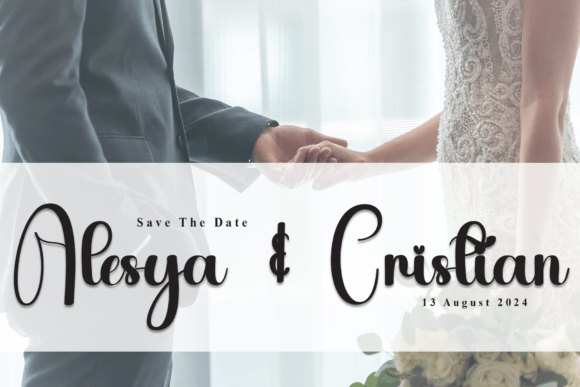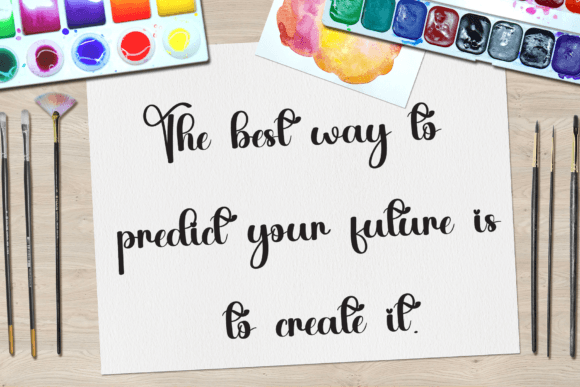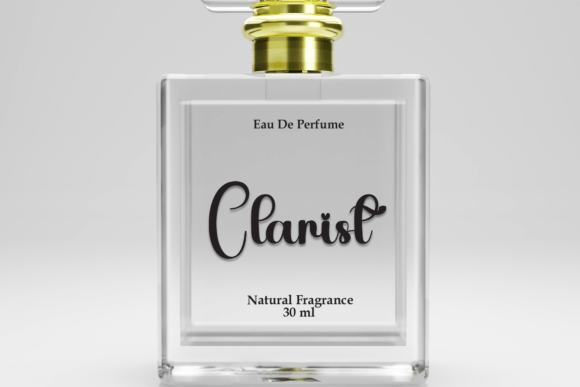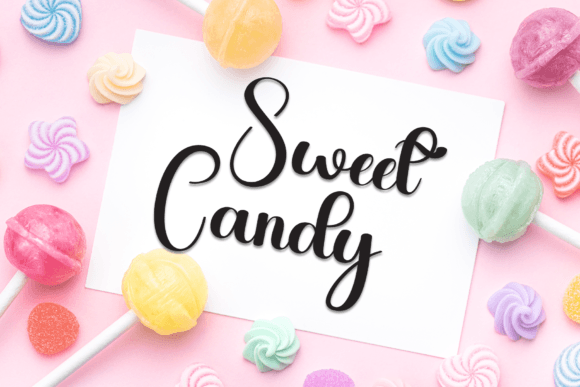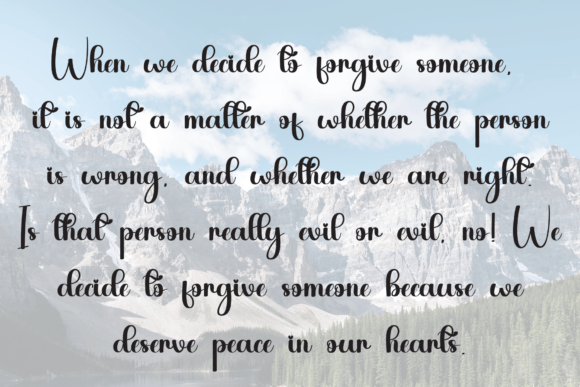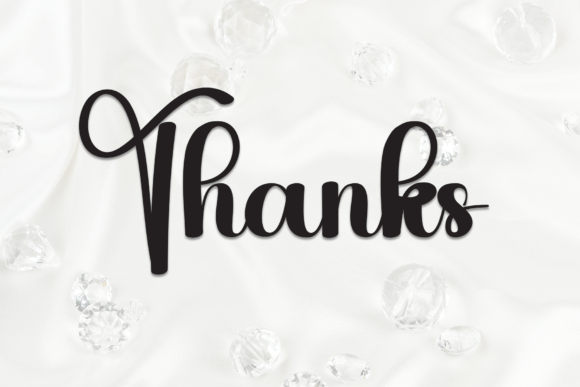
Diamond Font: The Charming Handwritten Display Font for Your Creative Projects
Are you looking for a font that can add a touch of playfulness and adorability to your designs? Look no further than the delightful Diamond Font! This charming and personable handwritten display font is perfect for designers and crafters who want to infuse their creative projects with a dose of fun and love.
The Characteristics of Diamond Font
Diamond Font is a unique and eye-catching font that exudes a playful and adorable appeal. Its lovely and jovial touch makes it perfect for a variety of designs, from wedding invitations and heartfelt notes to whimsical cards and more. The font’s amiable nature makes it an ideal choice for designers who want to create a warm and inviting atmosphere in their designs.
Perfect for a Variety of Designs
Diamond Font is a versatile font that can be used in a variety of designs. Whether you’re creating wedding invitations, birthday cards, or social media graphics, this font is sure to add a touch of personality and whimsy to your designs. Its playful and adorable appeal makes it perfect for:
- Birthday cards and party invitations
Why Choose Diamond Font?
So why choose Diamond Font for your creative projects? Here are just a few reasons:
- Unique and eye-catching: Diamond Font is a one-of-a-kind font that is sure to grab attention and add personality to your designs.
- Playful and adorable: This font’s playful and adorable appeal makes it perfect for designs that require a touch of whimsy and fun.
- Versatile: Diamond Font can be used in a variety of designs, from formal to informal, and is suitable for a range of creative projects.
- Easy to read: Despite its playful and whimsical nature, Diamond Font is easy to read and understand, making it perfect for designs that require a clear and concise message.
How to Use Diamond Font in Your Designs
Using Diamond Font in your designs is easy! Here are a few tips to get you started:
- Pair it with other fonts: Diamond Font pairs well with other fonts, such as sans-serif fonts, to create a unique and eye-catching combination.
- Use it for headings: Diamond Font is perfect for headings and titles, where its playful and adorable appeal can really shine.
- Add some color: Diamond Font looks great in a variety of colors, so don’t be afraid to experiment and add some personality to your designs.
In conclusion, Diamond Font is a charming and personable handwritten display font that is perfect for designers and crafters who want to add a touch of fun and love to their creative projects. Its playful and adorable appeal makes it suitable for a variety of designs, from wedding invitations and heartfelt notes to whimsical cards and more. With its unique and eye-catching characteristics, Diamond Font is sure to bring joy and personality to every design.
So why not give Diamond Font a try? With its versatility, playfulness, and adorability, it’s the perfect font for designers and crafters who want to create unique and eye-catching designs that stand out from the crowd.